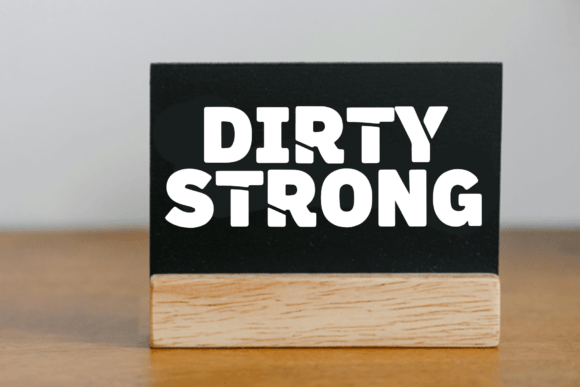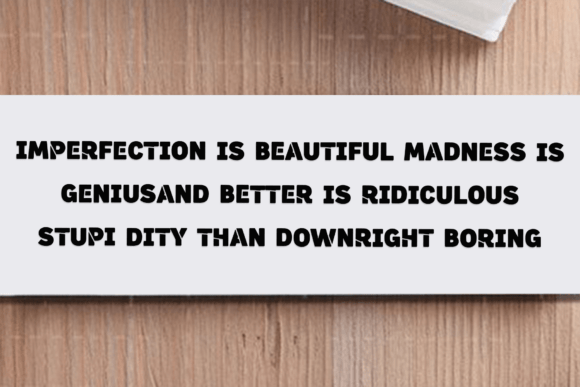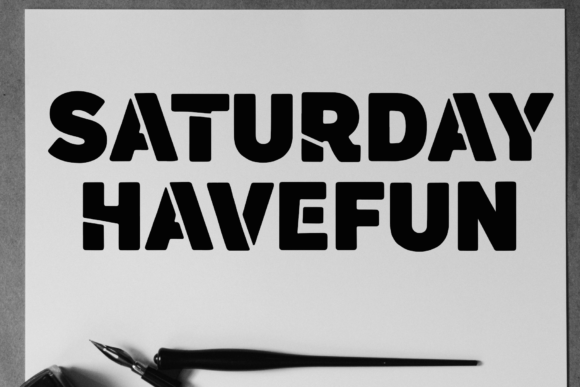
Introduction to Howdy Cowbow Font
Saddle up your designs with Howdy Cowboy, a bold and rugged modern display font.
Characterized by its heavy-set, condensed letterforms and unique β€œnotched” diagonal cuts, this typeface reimagines Western aesthetics with a contemporary, high-impact twist It is the premier choice for modern ranch branding, rodeo posters, adventure-themed apparel, and artisanal jerky or craft beer packaging.
Why Choose Howdy Cowbow Font?
Howdy Cowbow Font offers exceptional quality and versatility, making it a valuable addition to your design toolkit. Whether you’re creating for personal projects or commercial use, Howdy Cowbow Font delivers professional results.